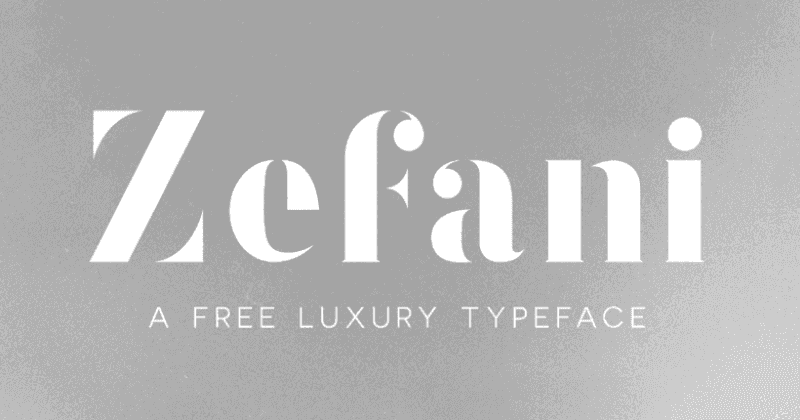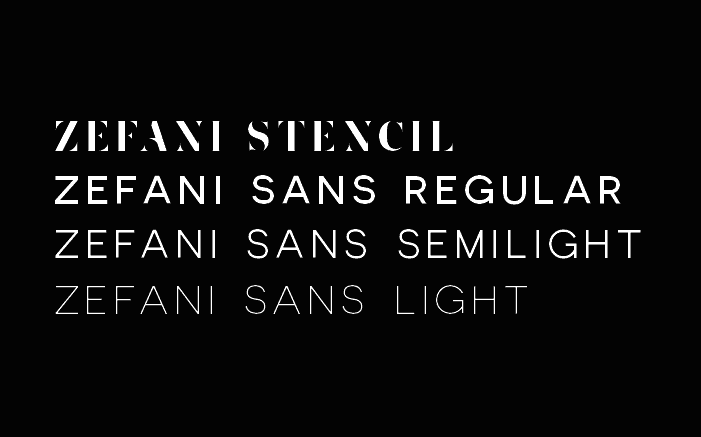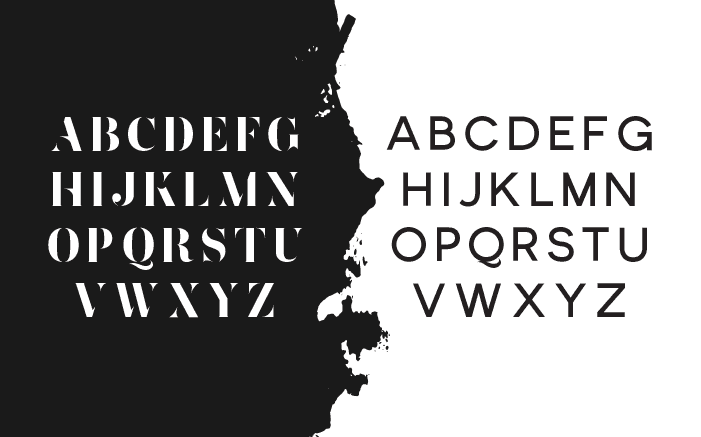
Discover Zefani Font Free, part of the Sans Serif Stencil Army collection—a versatile and unique font perfect for adding a personal touch to your projects. Download it for free and enjoy crafting designs with style, from invitations to social media posts. This font is available exclusively for personal use, giving you the freedom to create without limits. Unlock your creativity with Zefani Font Free today!
Zefani Stencil and Zefani Sans are members of the same Zefani typeface family and even though they share the same name they include different characters for which the lines are accentuated. Also, there is the related font Zefani Sans which is also a monoline sans serif font; due to the fact that it has three weights, it provides more options in font usage.